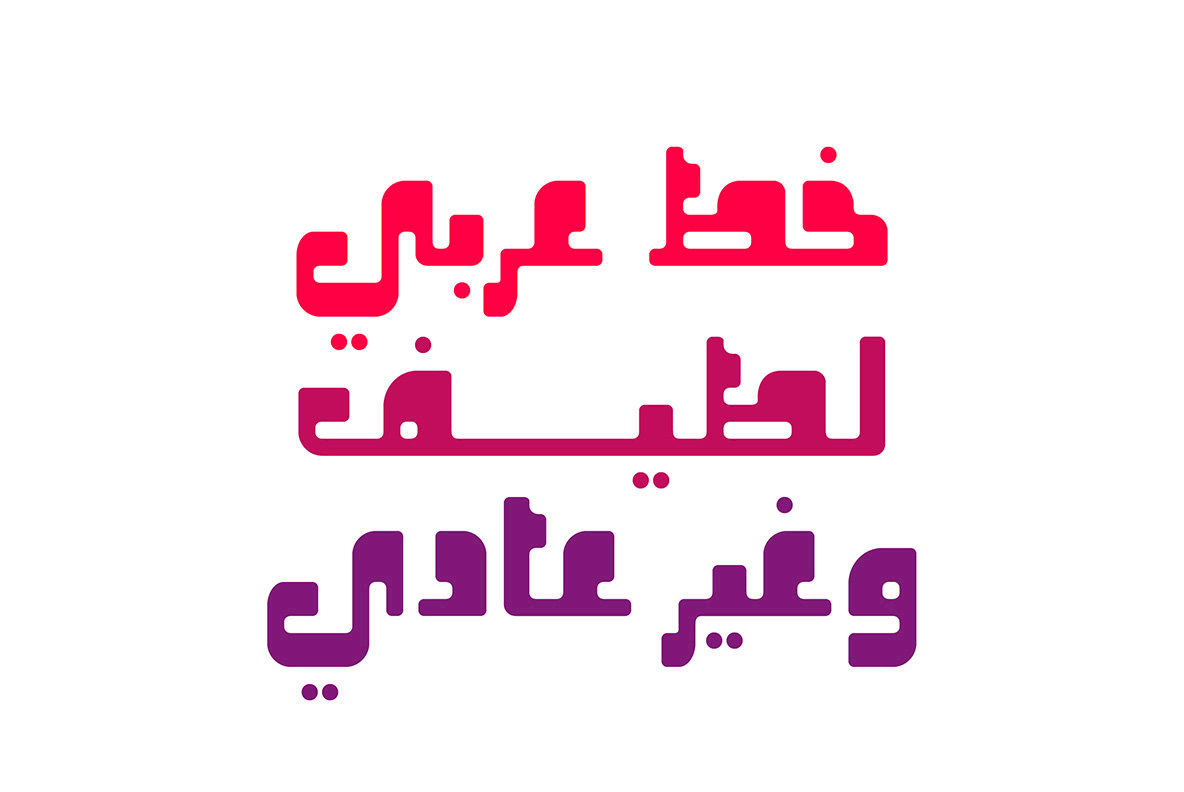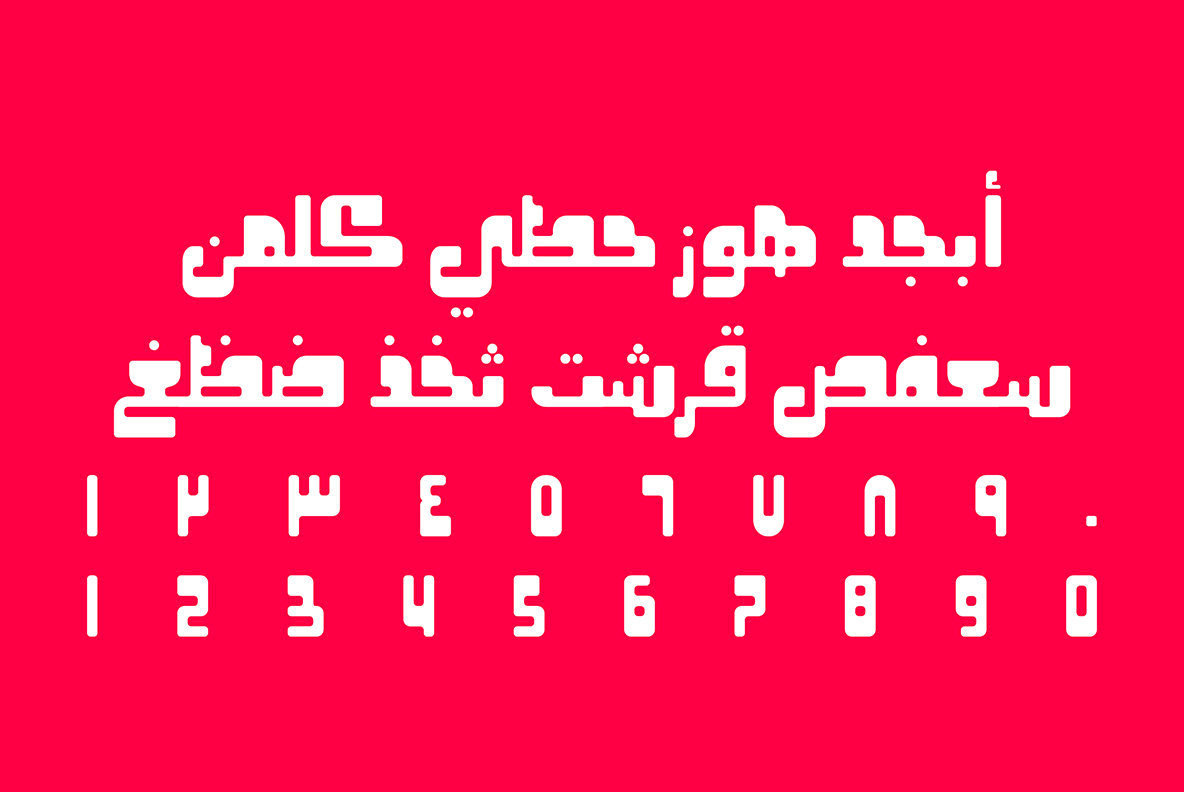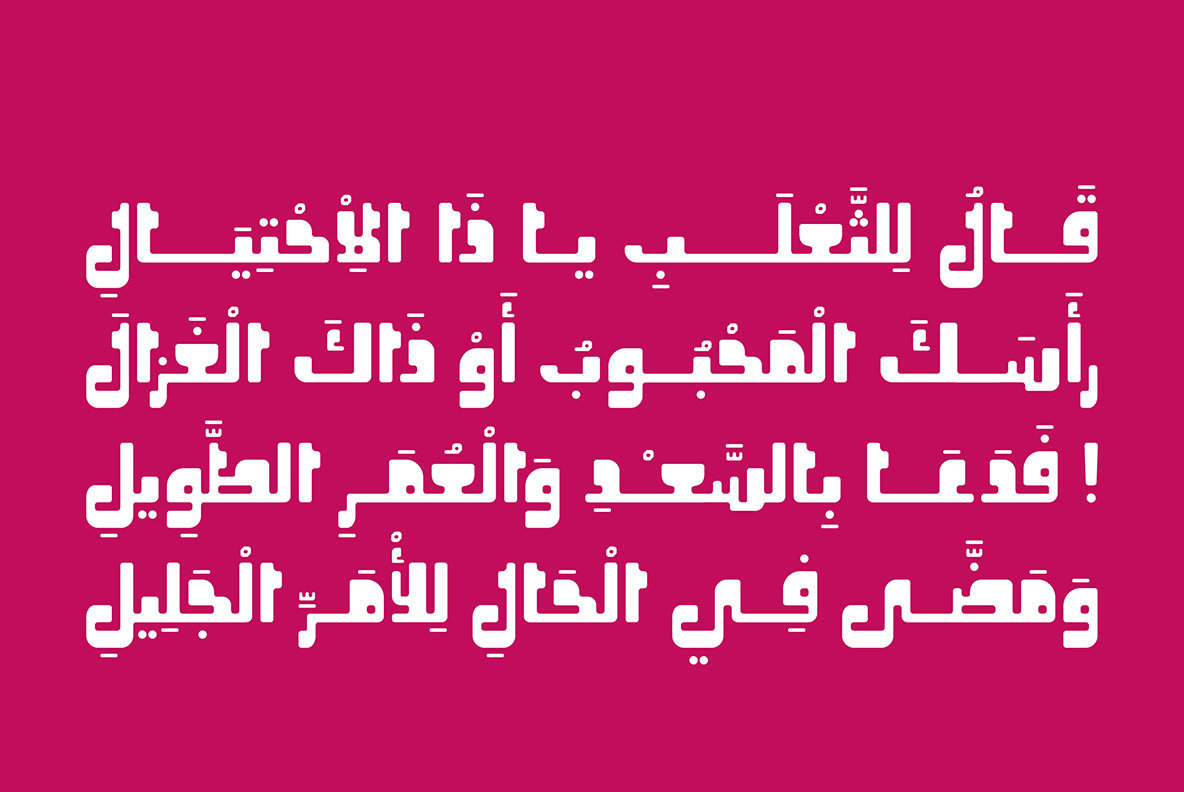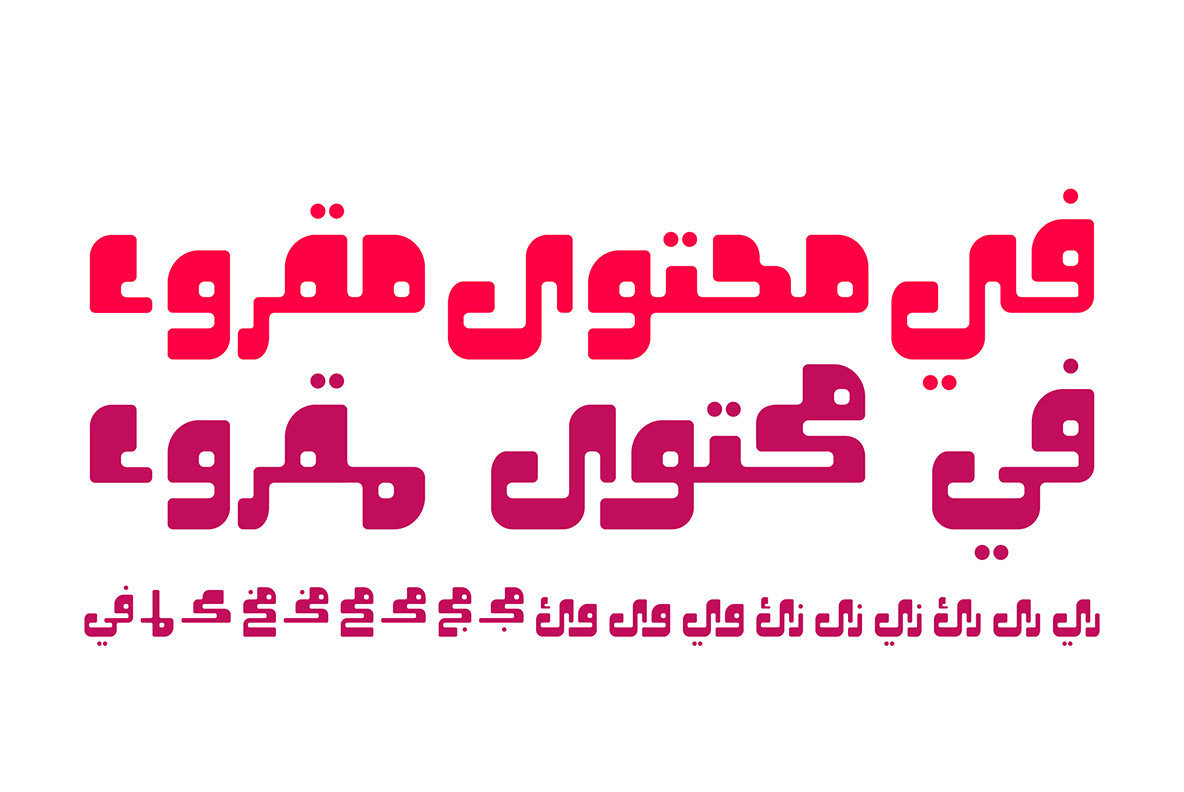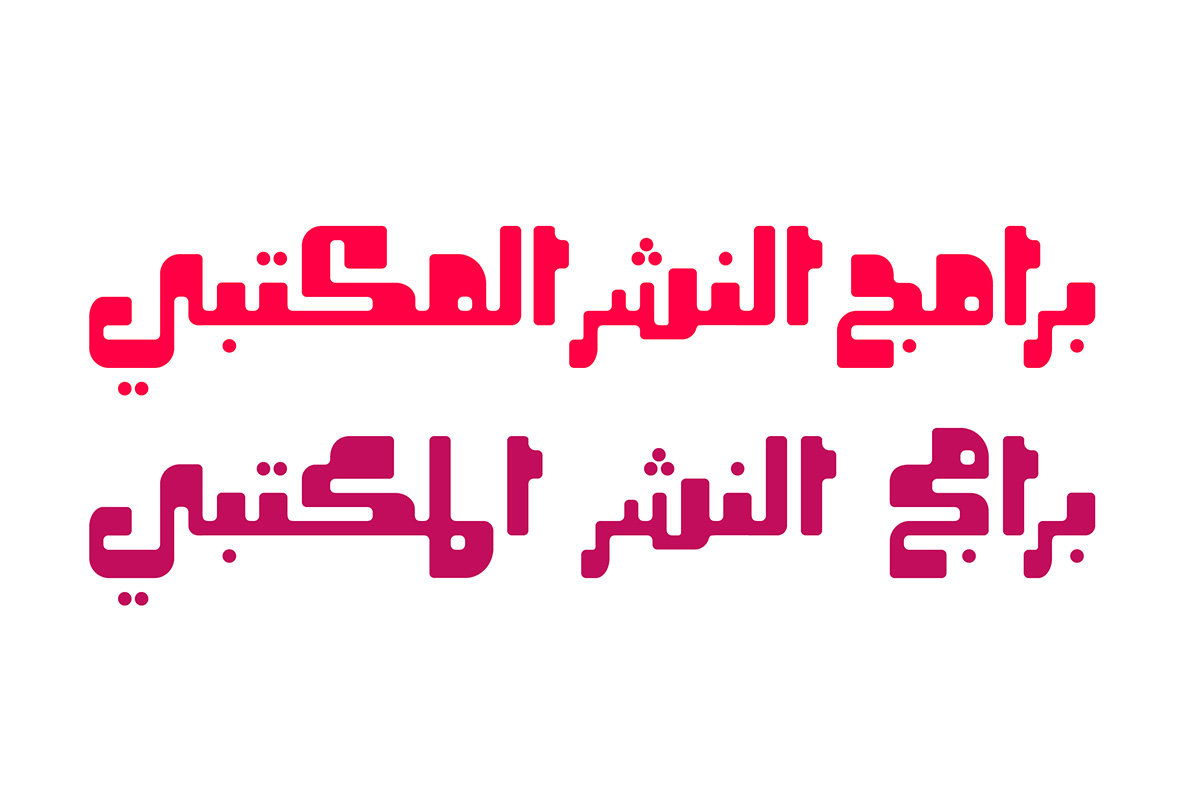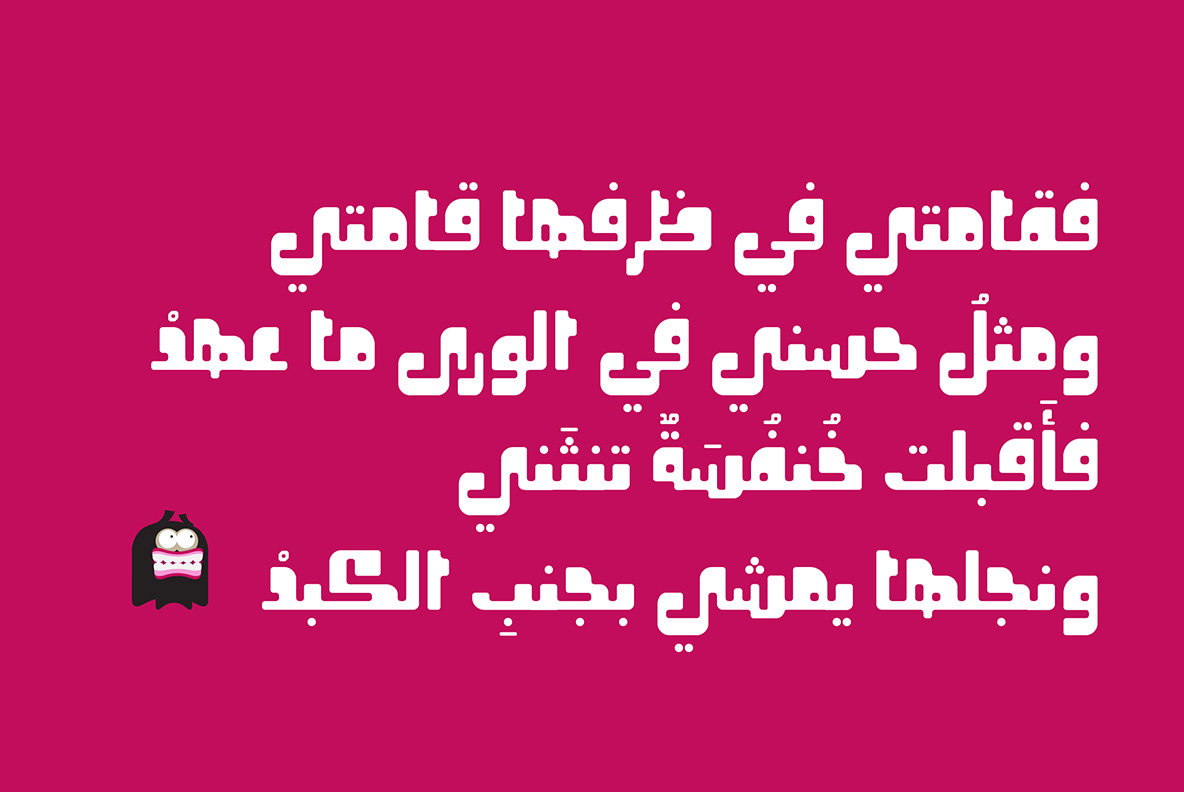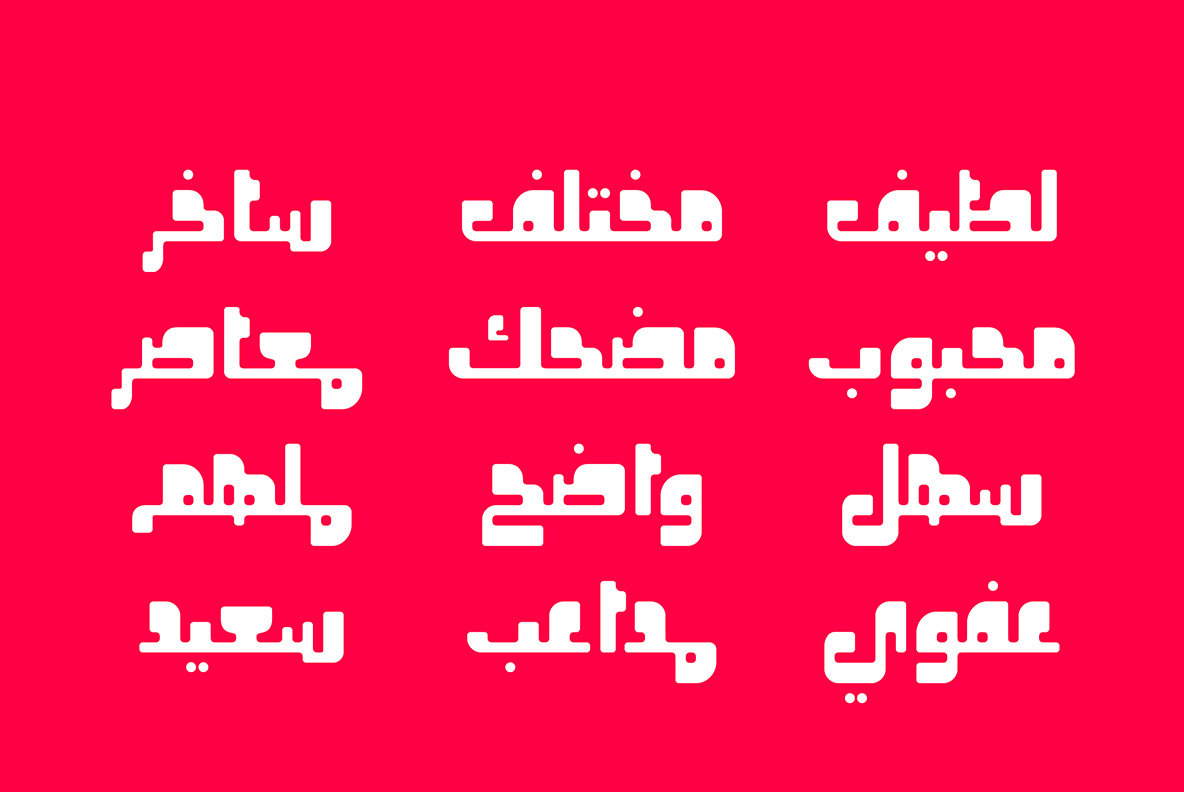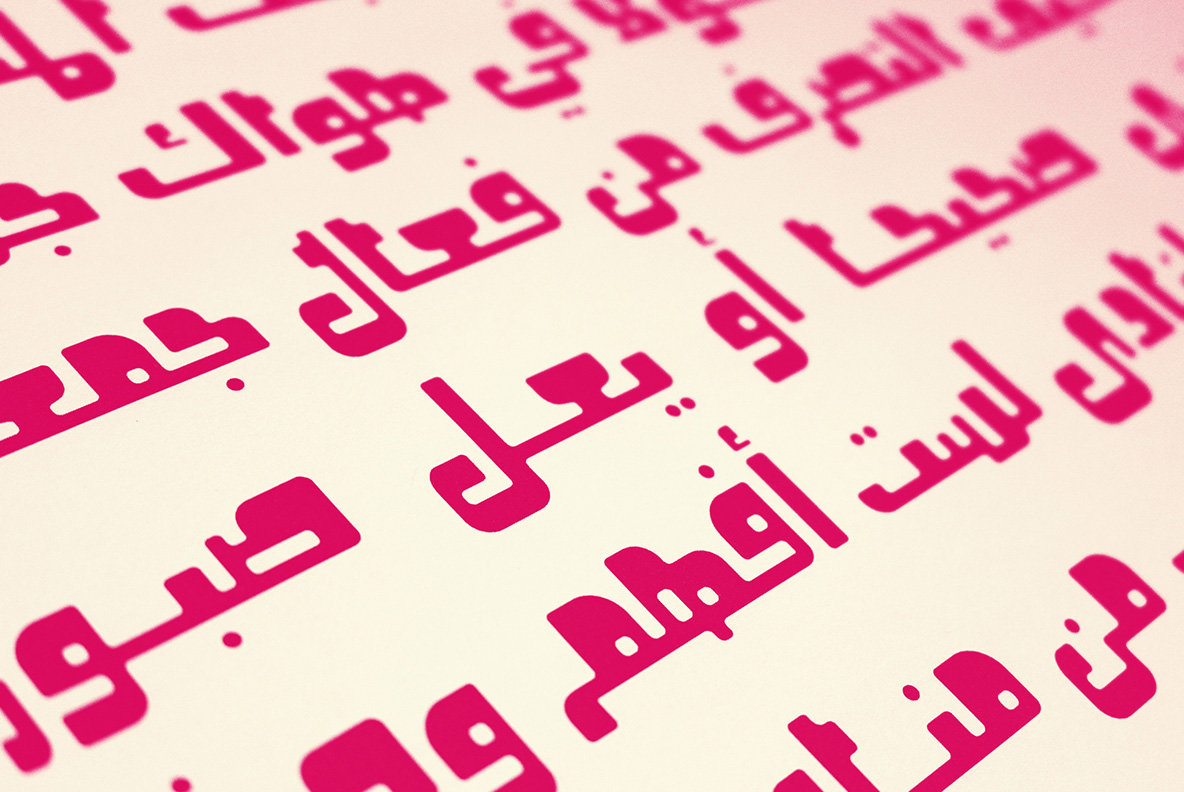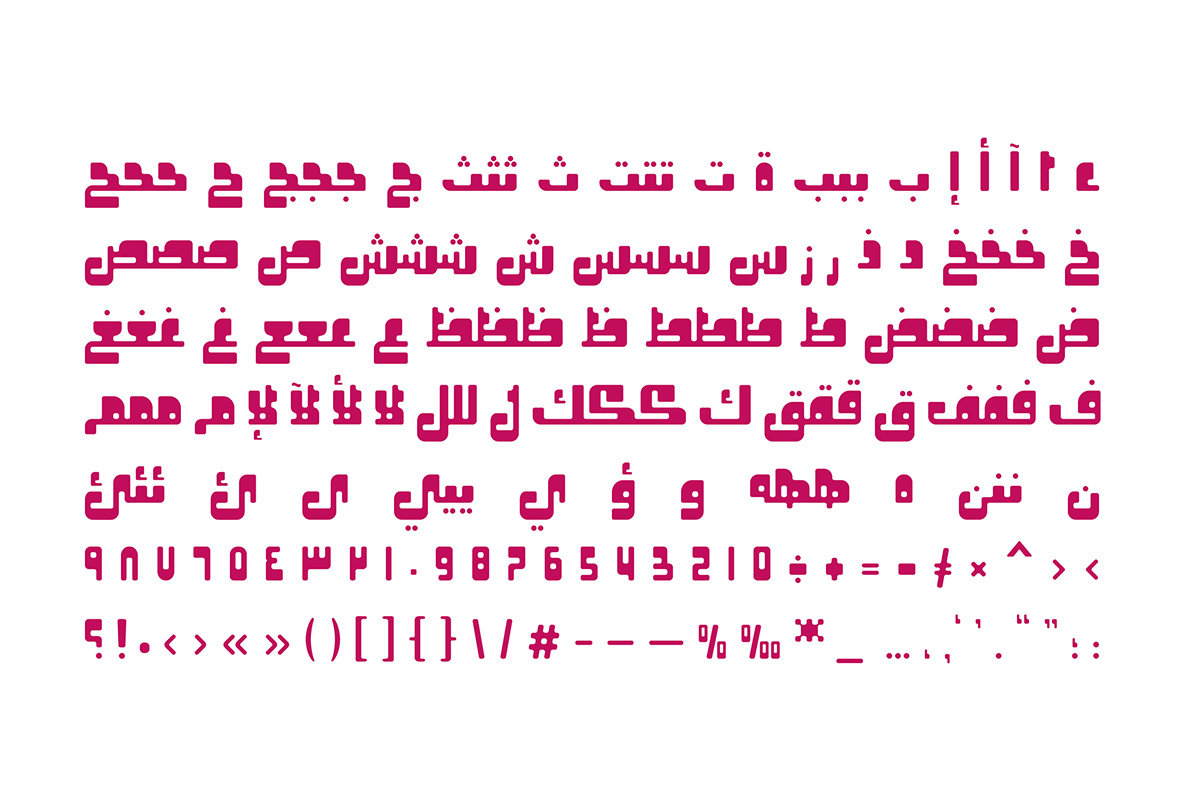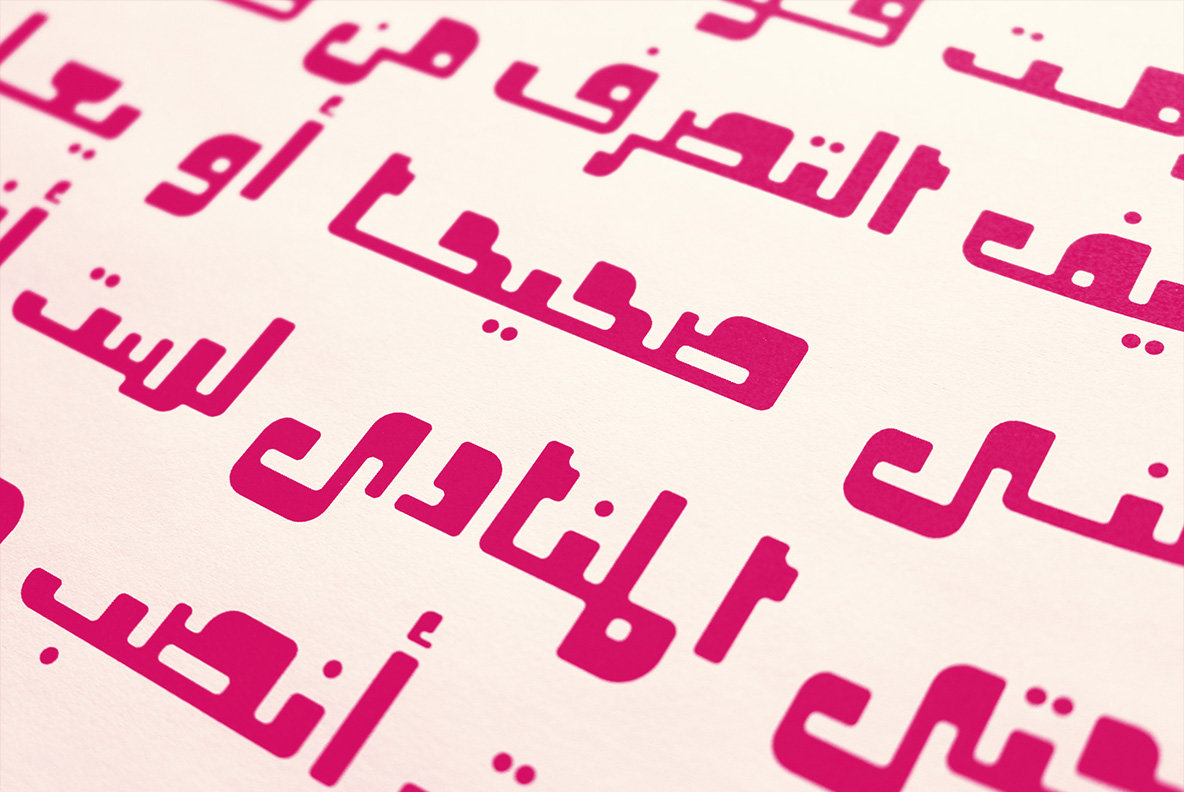
Oajoubi Font
Oajoubi
Oajoubi is the Arabic word for Miraculous. This is a font that features a single weight with a heavy geometric structure, smooth-rounded edges and stylistic sets. Oajoubi suits many display purposes including infographics, publication, web design, advertising, packaging and brand identities.